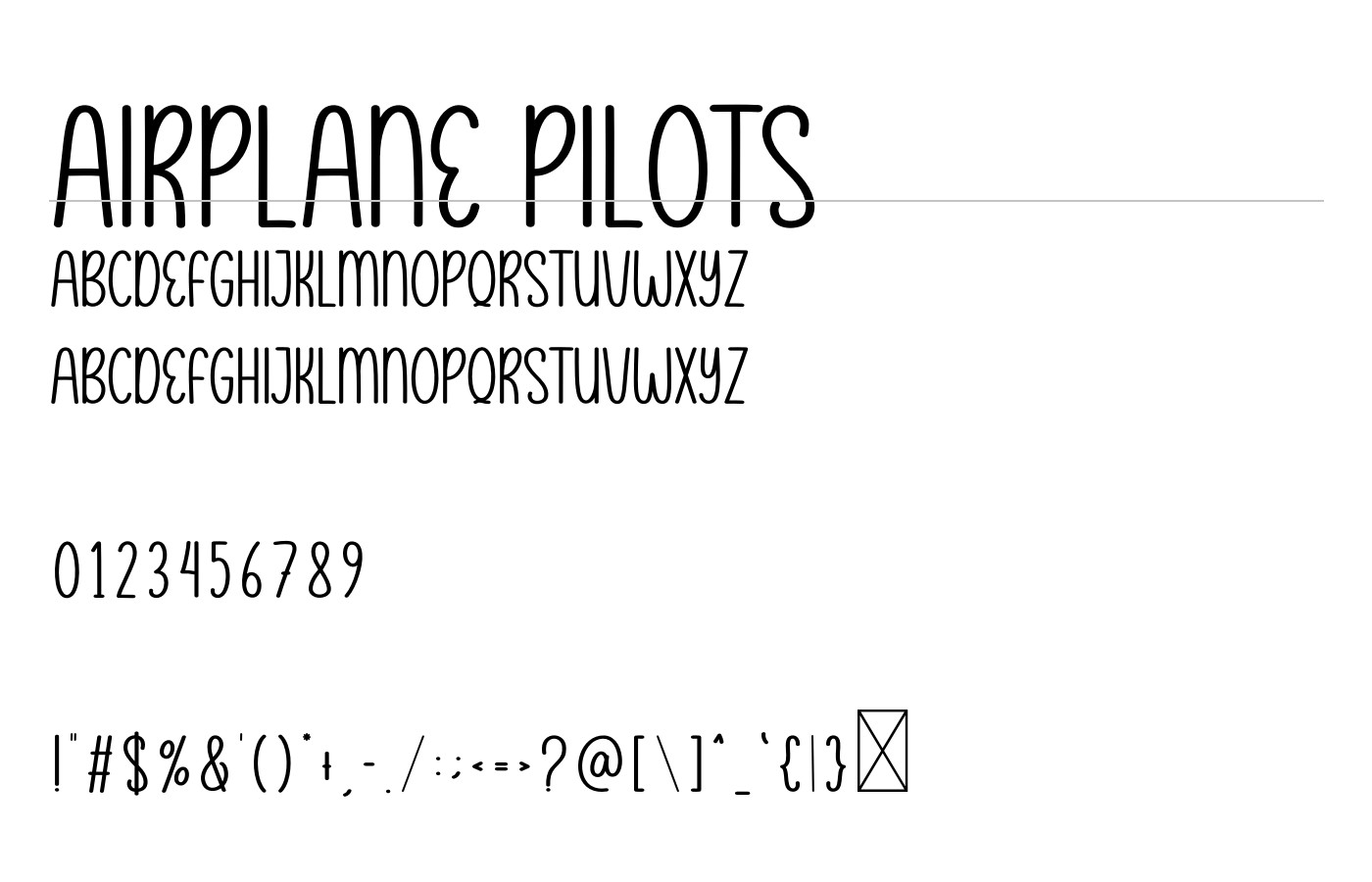
Airplane Pilots is a tall, narrow sans serif font with a hand-drawn, playful character that gives it a friendly and casual feel. Its thin strokes and slightly irregular letterforms make it ideal for eye-catching headlines, logos, or creative projects that want to convey approachability and uniqueness. This font works well in designs aimed at younger or creative audiences where a lighthearted, informal style is desired.
Airplane Pilots Font